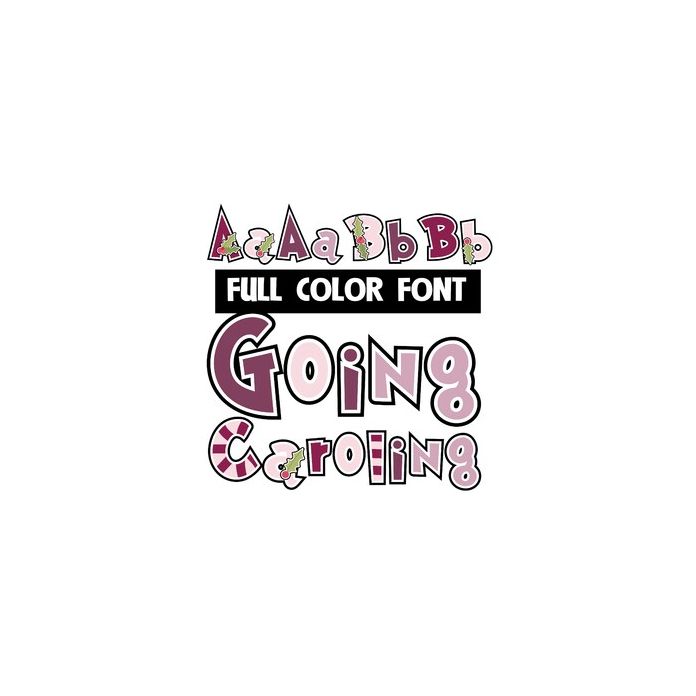
This full-color font features Christmas colors, candy cane stripes and holly throughout. There is a secondary alt case for both upper and lower that you can access through Silhouette's glyph map.